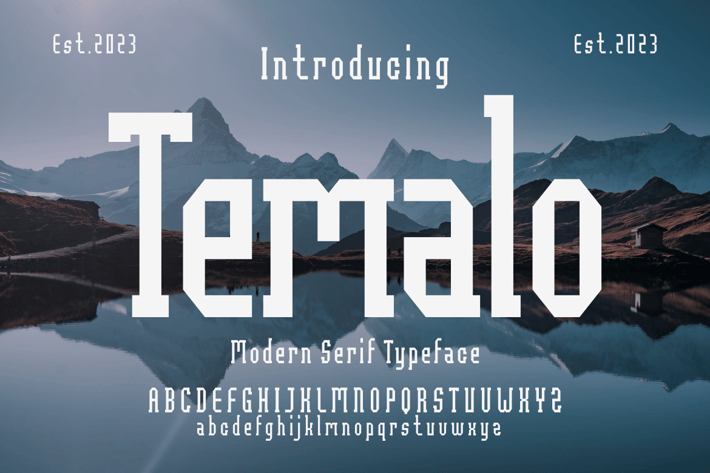
Temalo Font
Introducing our new product Temalo Font - Modern Font
Temalo Font - Modern Font is a bold and authentic display font. The font is suitable for any branding project like logo, t-shirt printing, and many more. outstanding in a wide range of contexts.